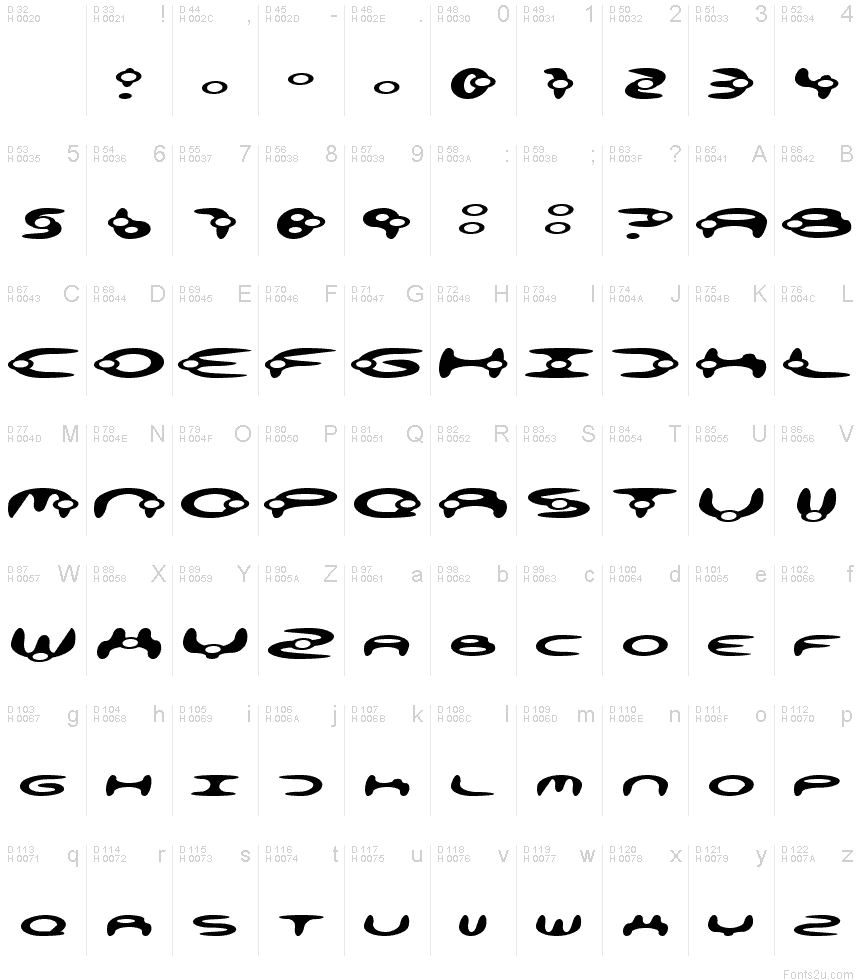
alienation
Alienation font by Eyesaw Fontz, Dirk Uhlenbrock is a free decorative display typeface that looks like it’s been stretched by gravity in deep space. Each letter flows into the next with slick, liquid curves and compressed shapes, giving your words a strange, otherworldly motion even when they’re standing still. It feels glossy, synthetic, and slightly eerie—like neon signage on a distant planet.
Using Alienation, your titles snap into a bold sci-fi mood for movie posters, game logos, event flyers, album covers, tech branding, and streaming graphics. This free font works best at large sizes where its warped contours and tight rhythm can really breathe. Pair Alienation with a clean geometric sans for body copy to keep things readable while the headline does all the alien talking.